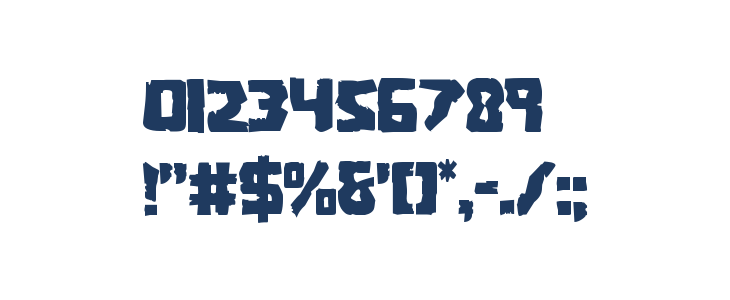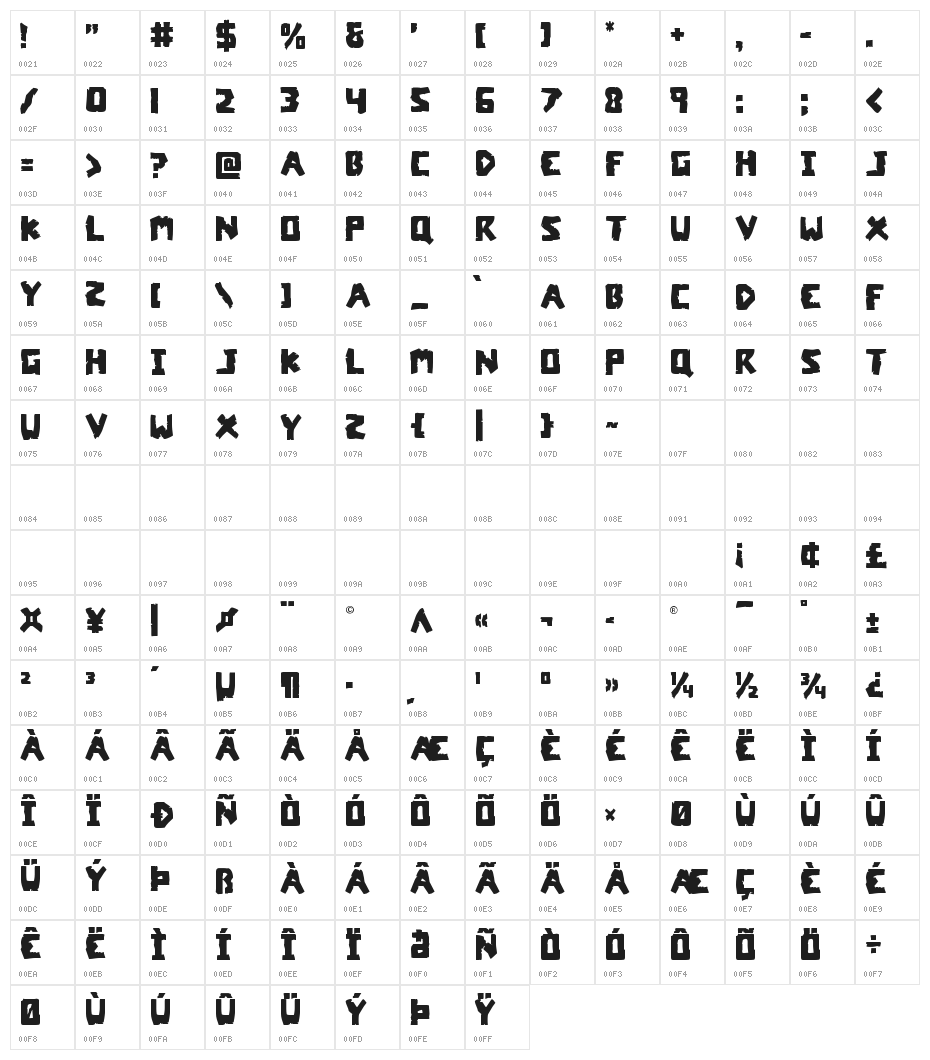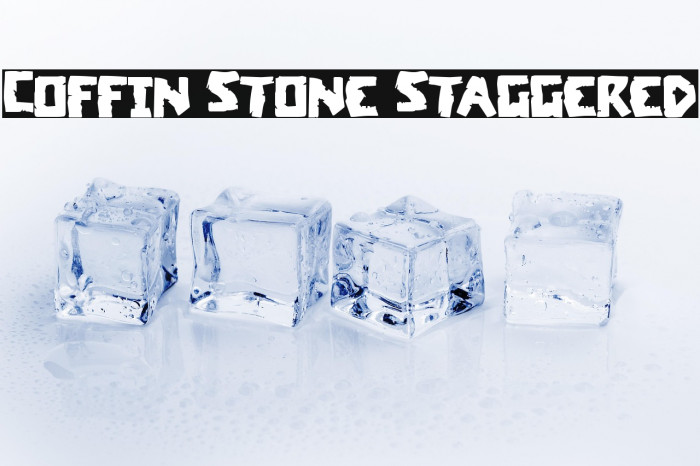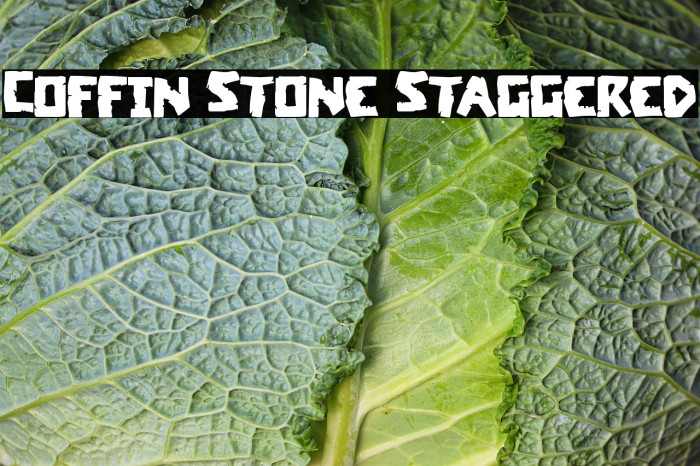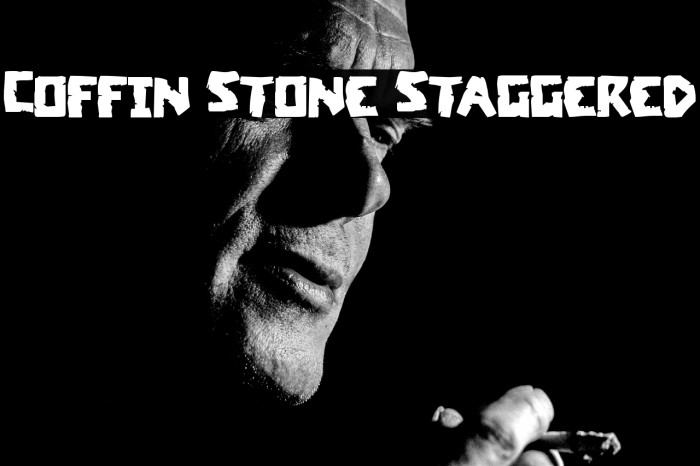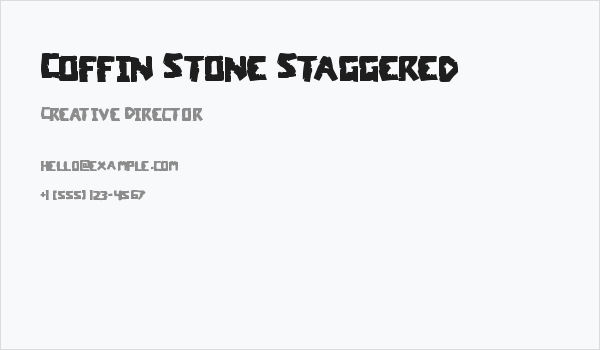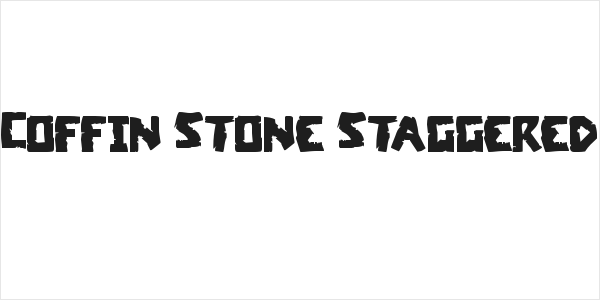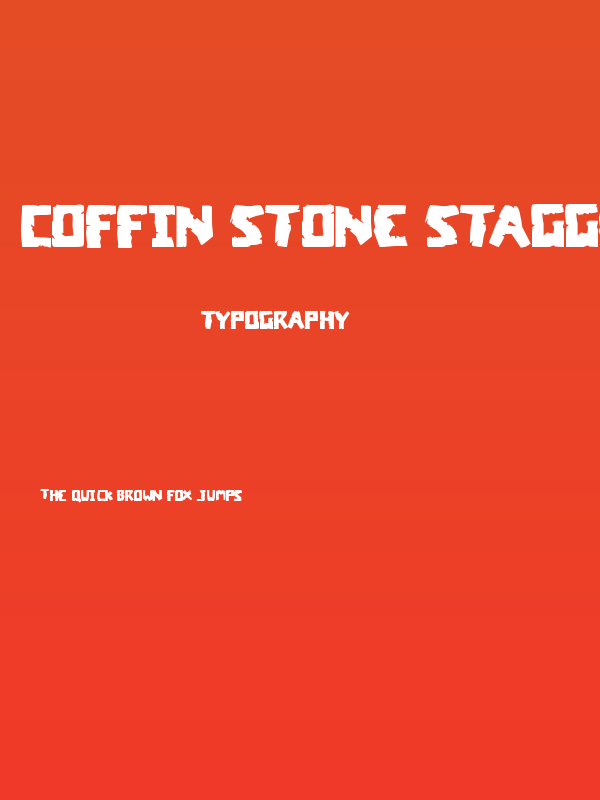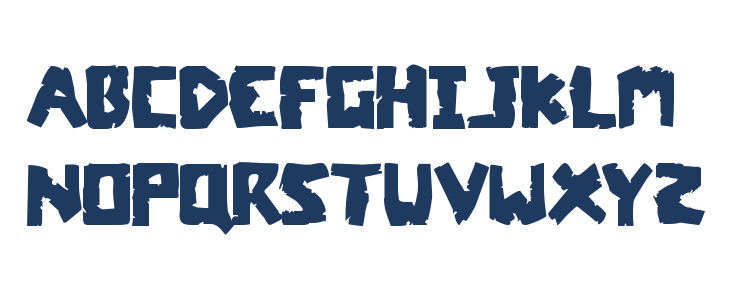
Coffin Stone Staggered Font
Coffin Stone Staggered Description
This font features a rugged, distressed appearance with uneven edges and a bold, impactful presence. The characters are designed with a rough, stone-like texture, giving them a staggered and irregular look. This style evokes a sense of rawness and edginess, making it ideal for projects that require a strong, attention-grabbing visual element. The uppercase and lowercase letters maintain a consistent style, with numbers and special characters following the same rugged theme. The font's unique design makes it stand out, perfect for creative and unconventional uses.
| Proposed Projects | Ideal for album covers, posters, video game graphics, and edgy branding projects. |